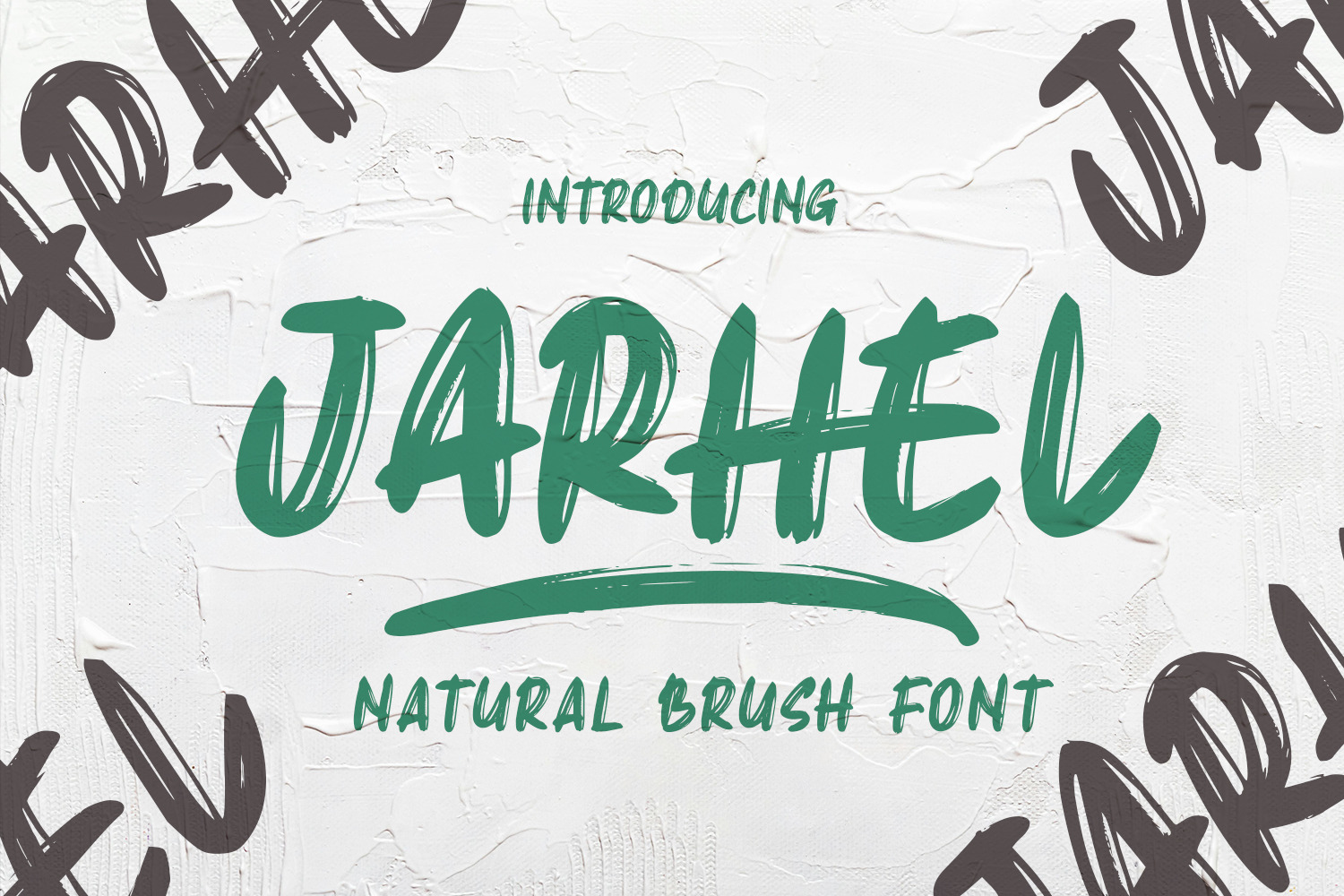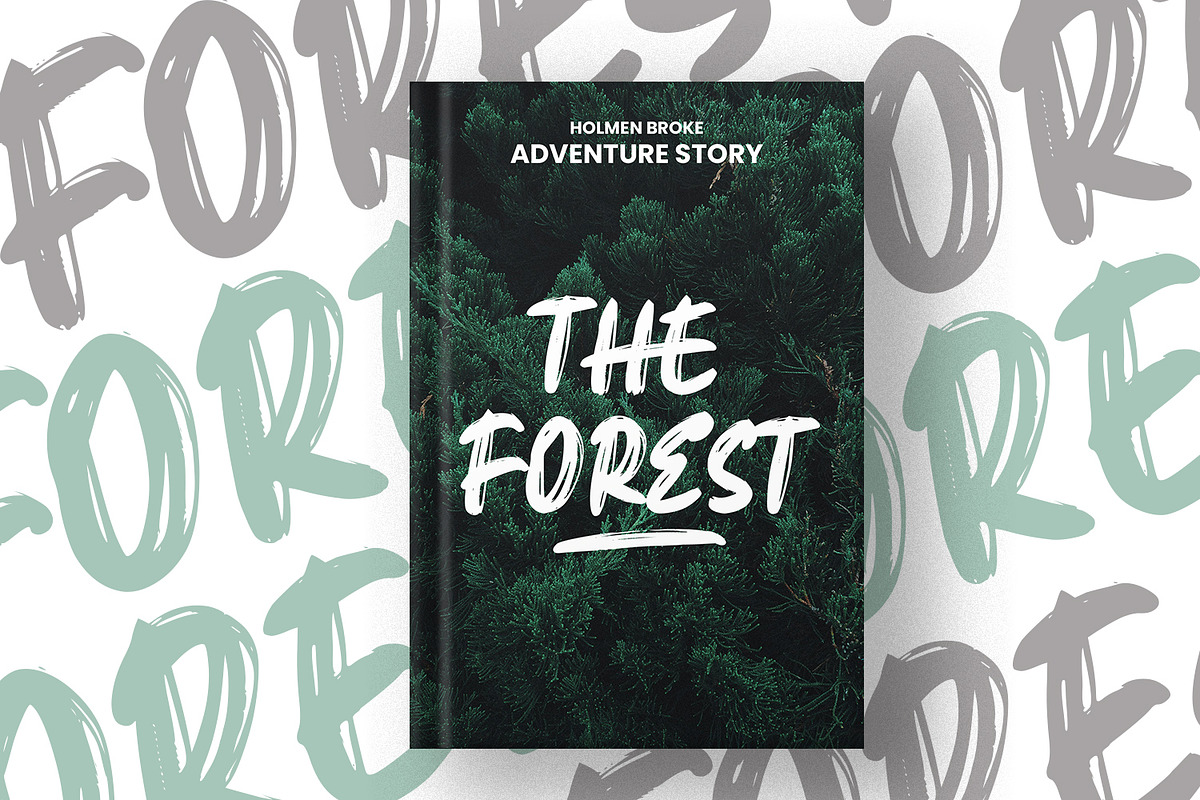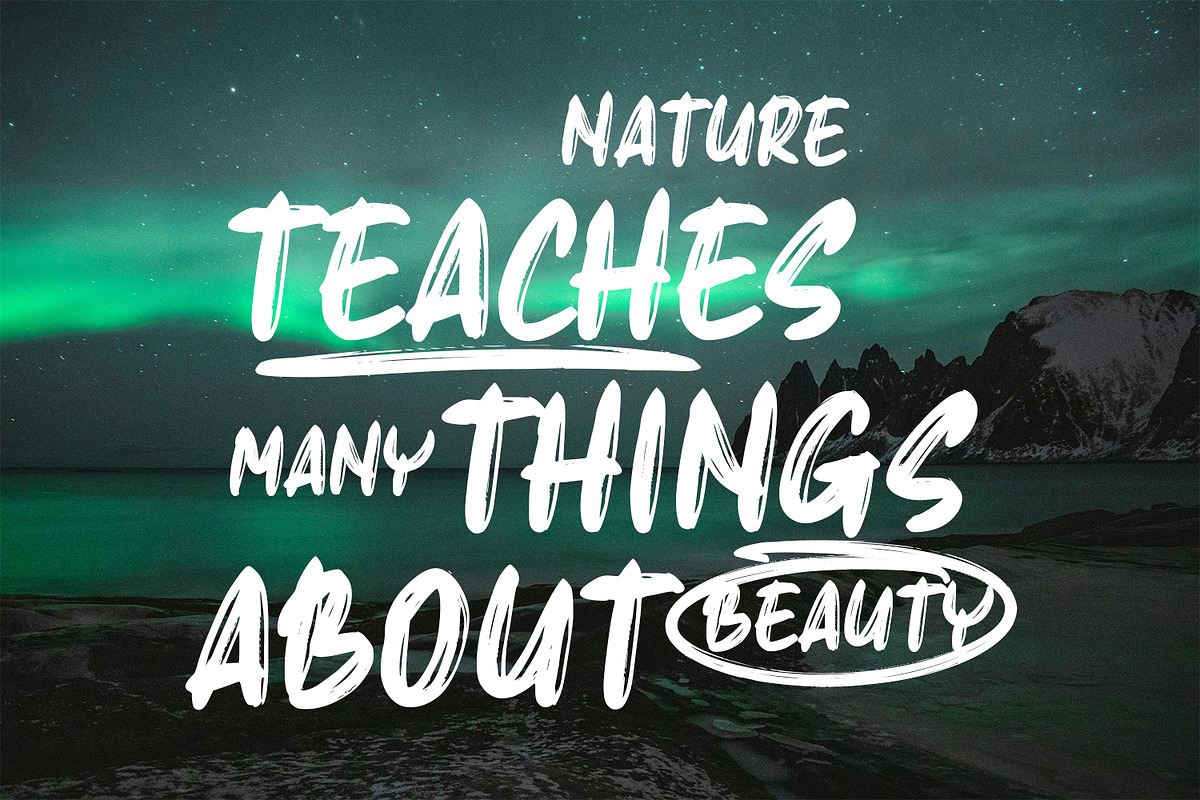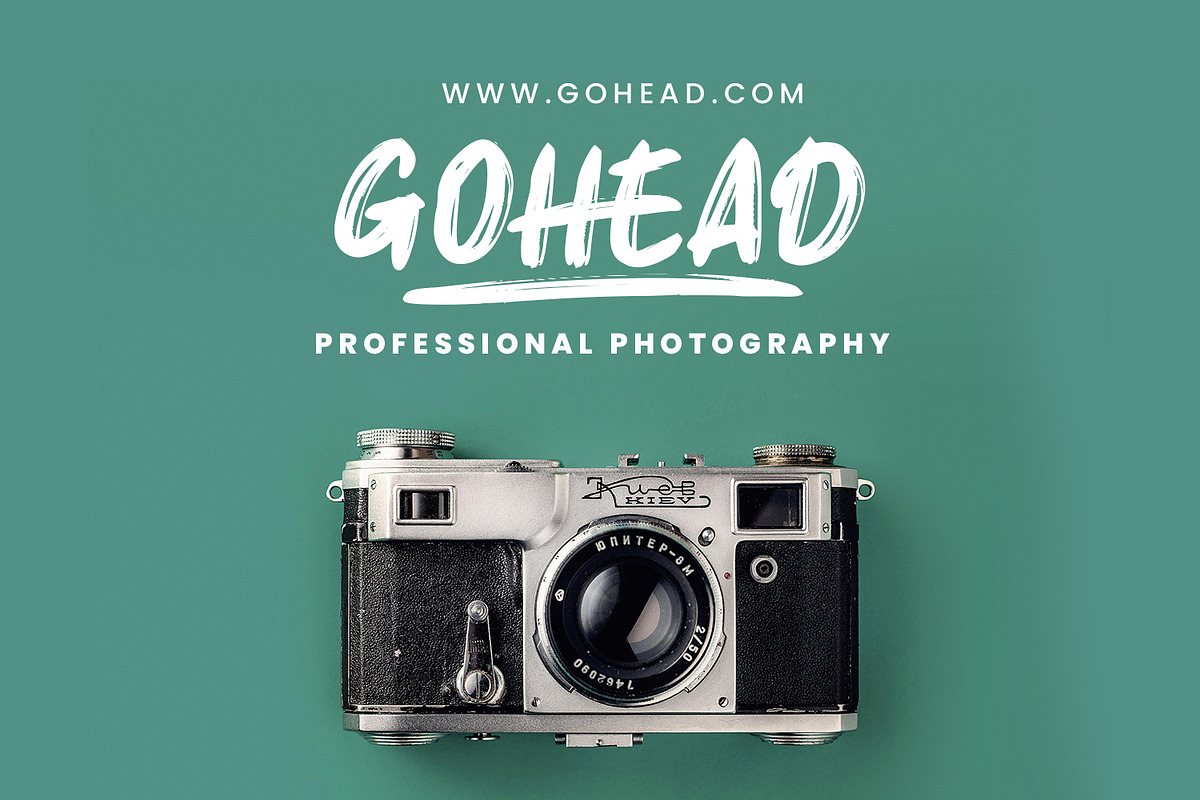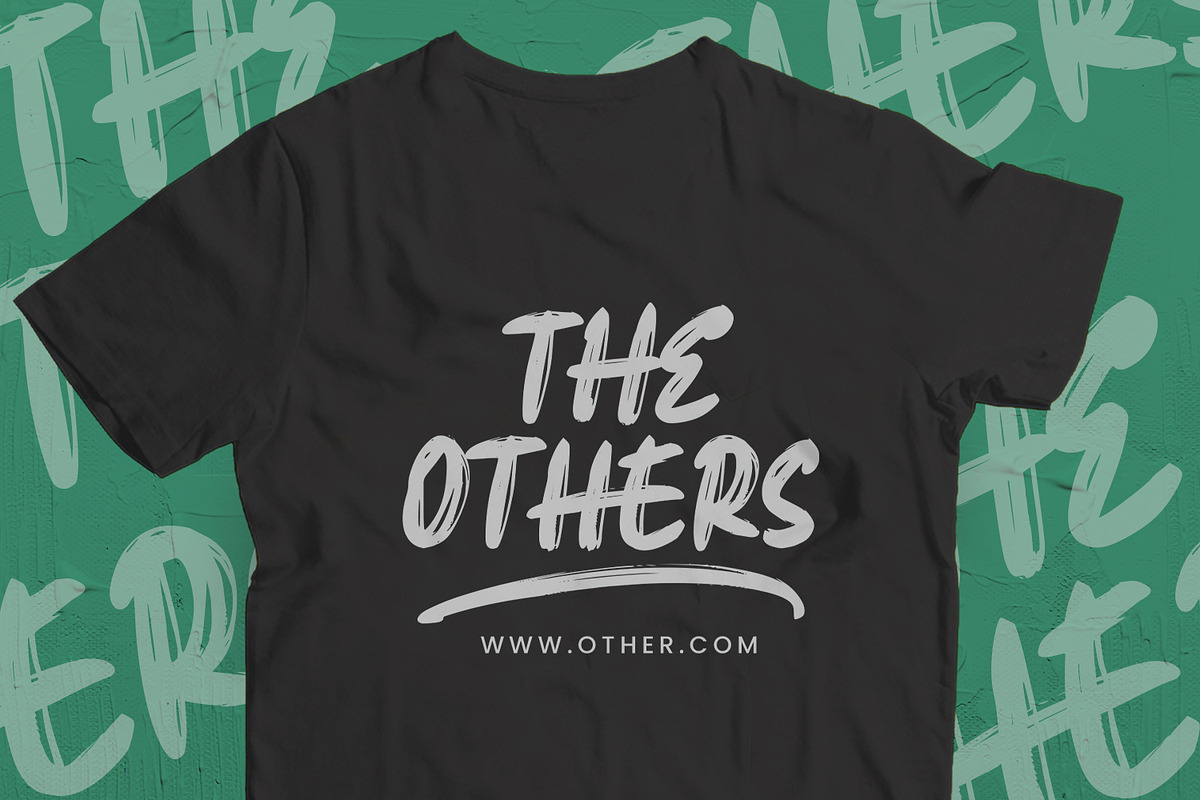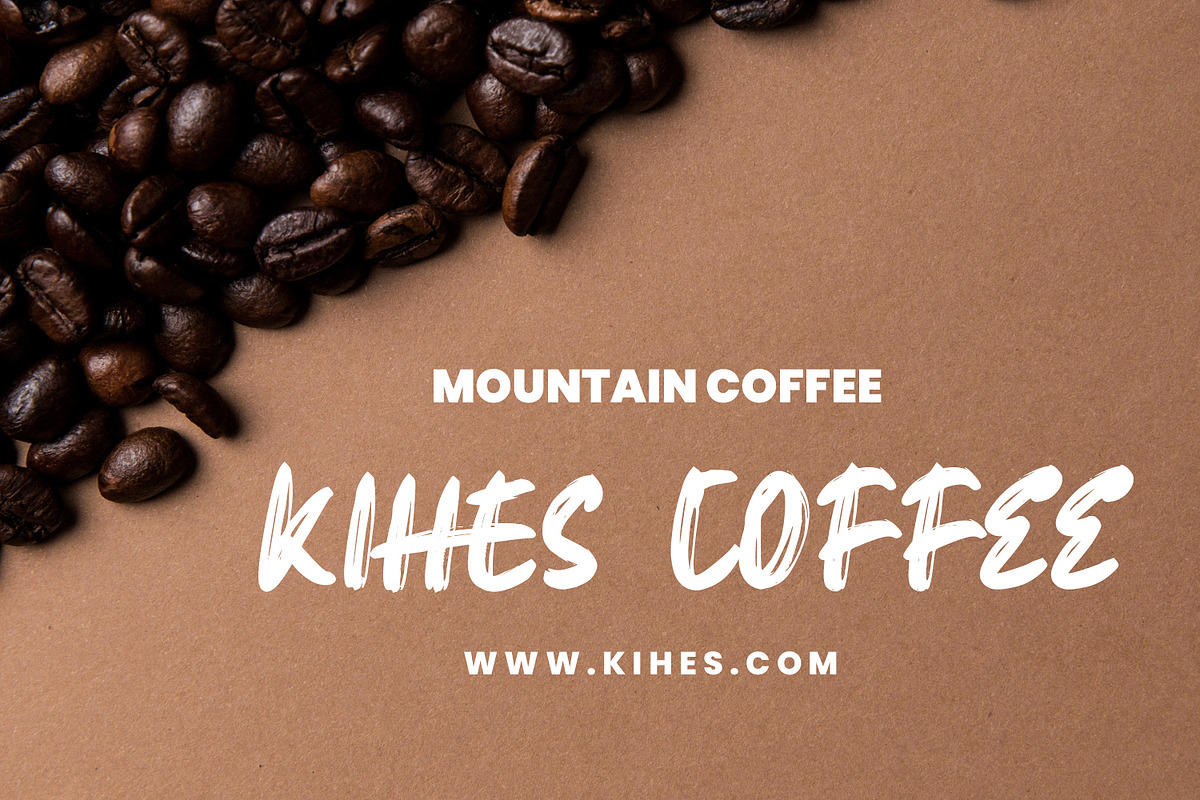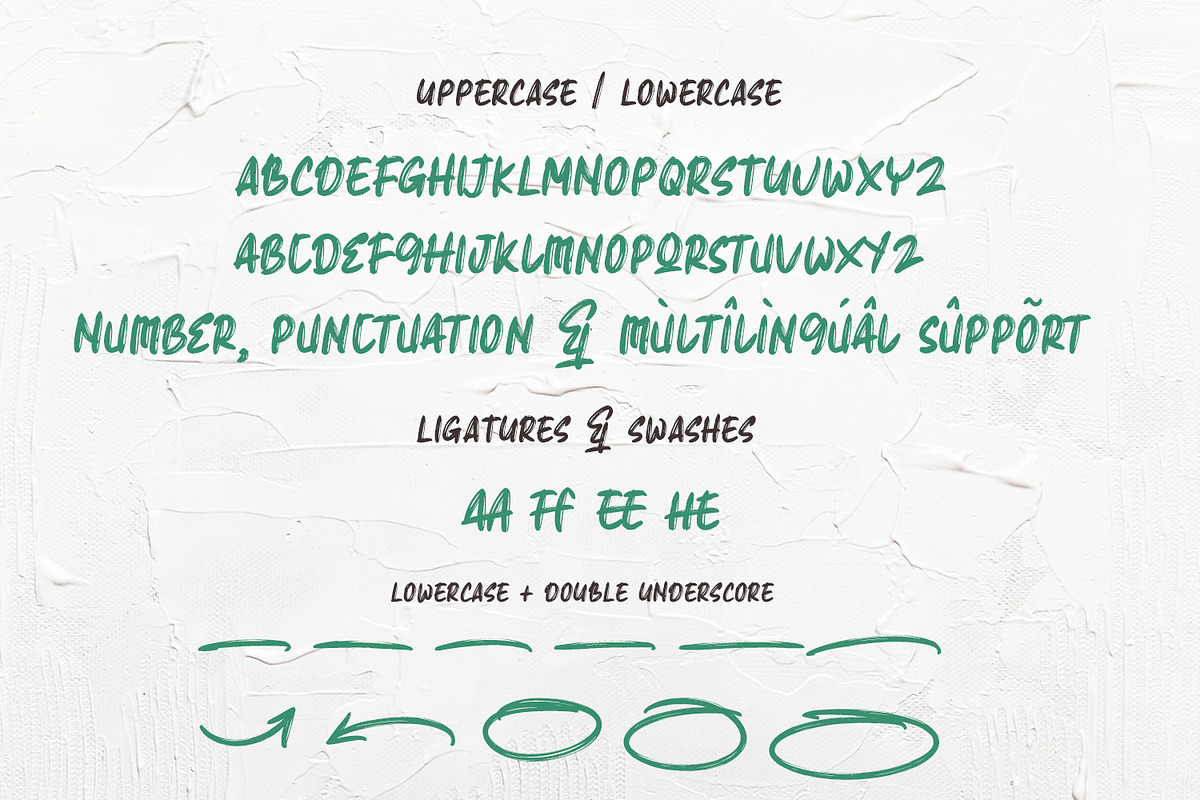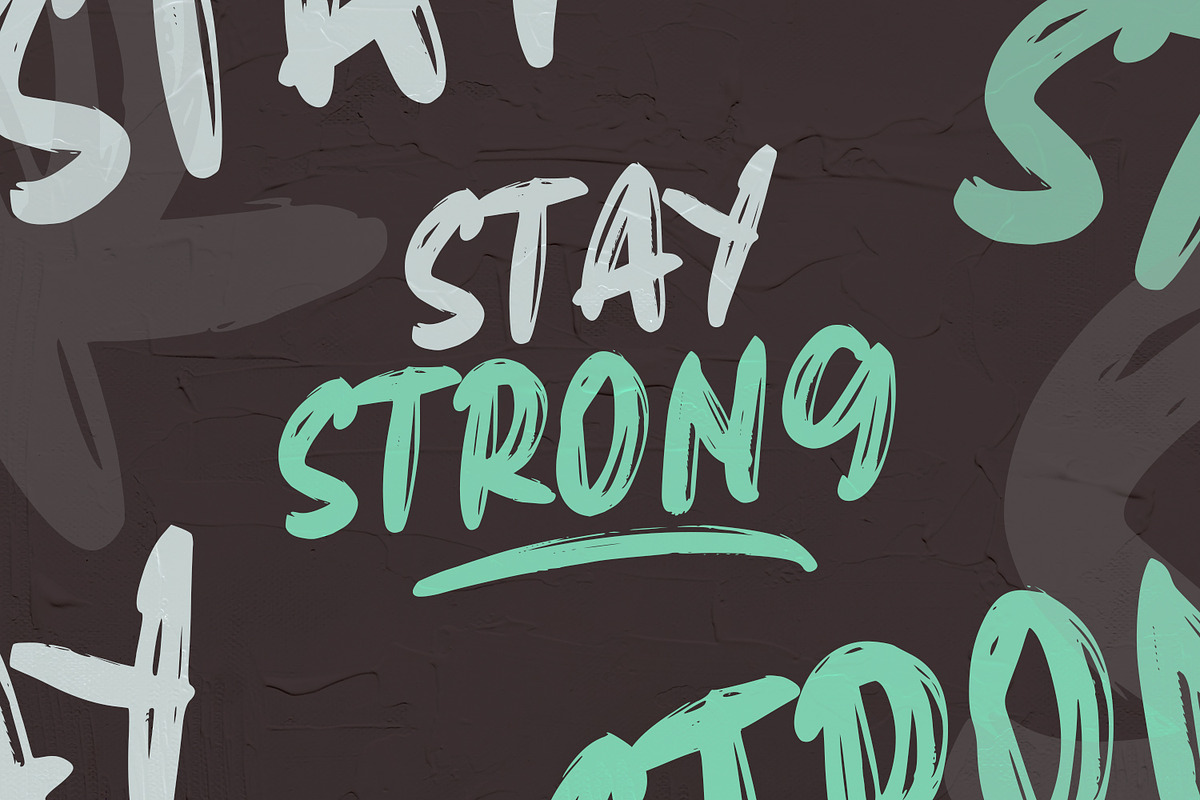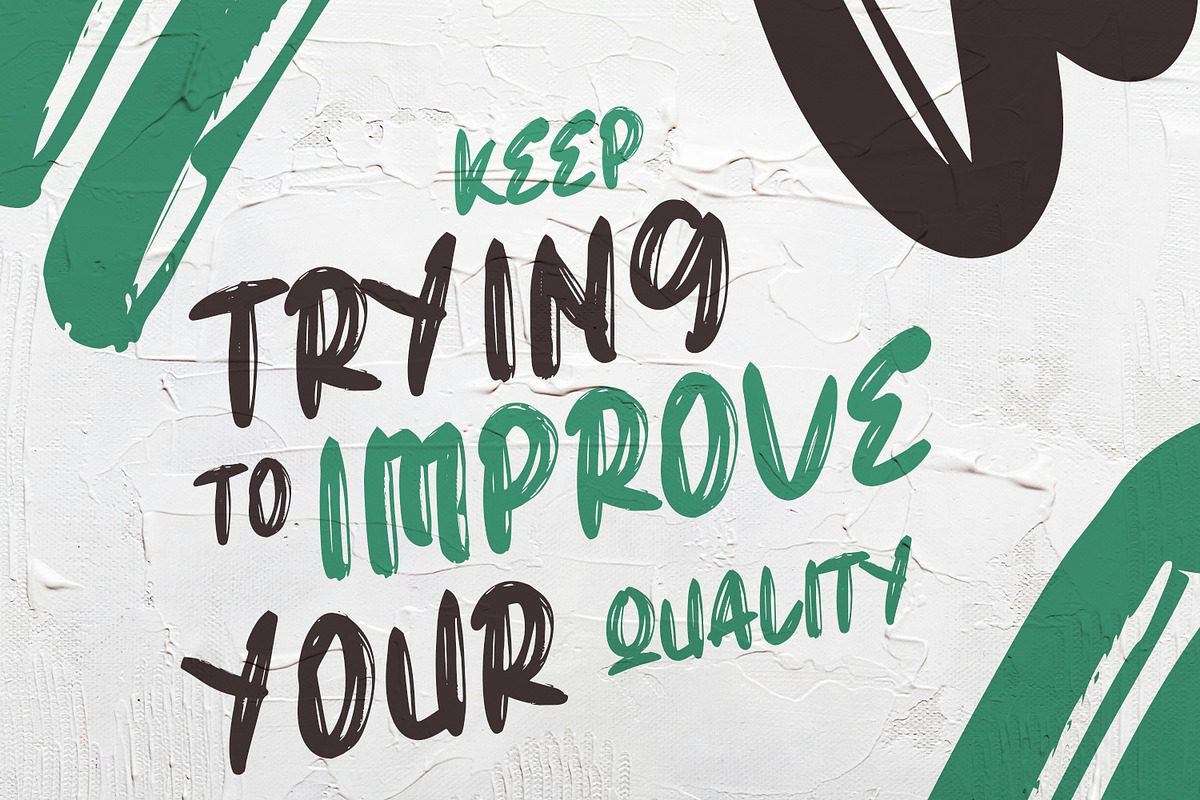
Jarhel Display Brush Font
Introducing JARHEL, a hand painted sans serif font
This slightly chunky all-caps font includes 2 sets of letters, providing you with the most realistic hand written final design possible. This font is perfectly suited for marketing & advertising, quotes & social media posts, plus much more.